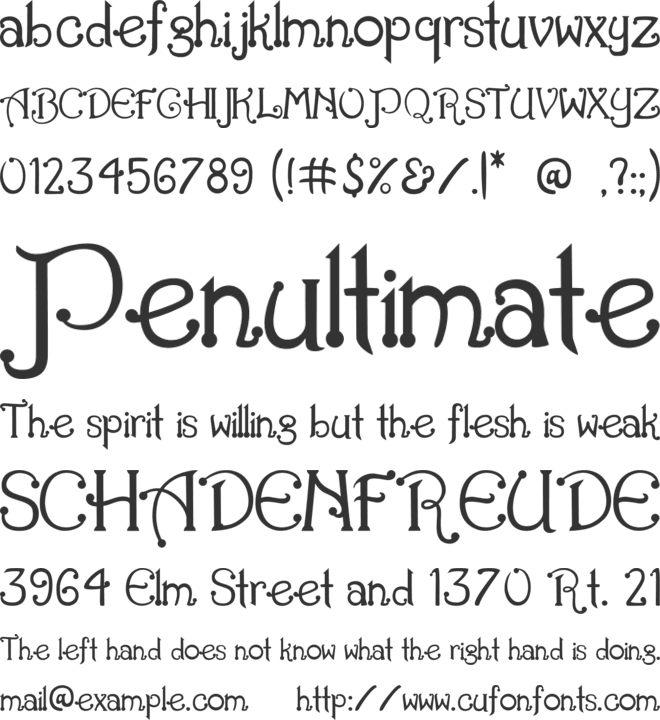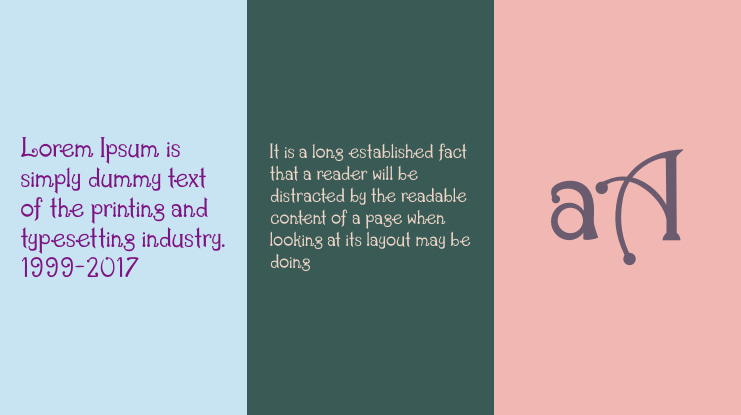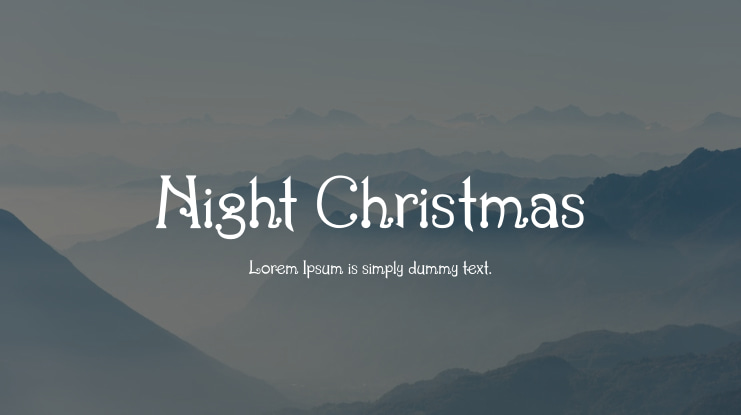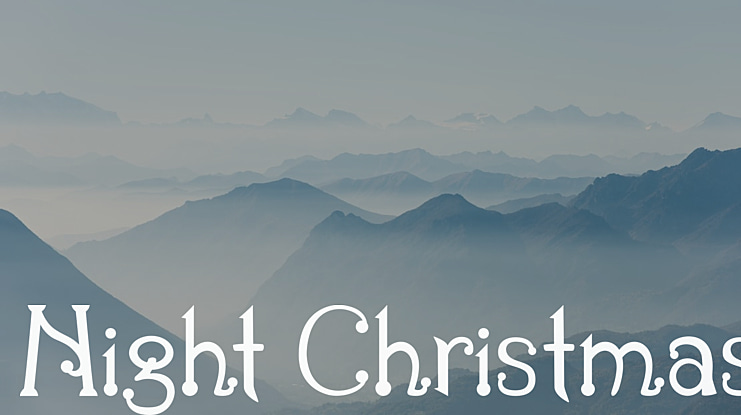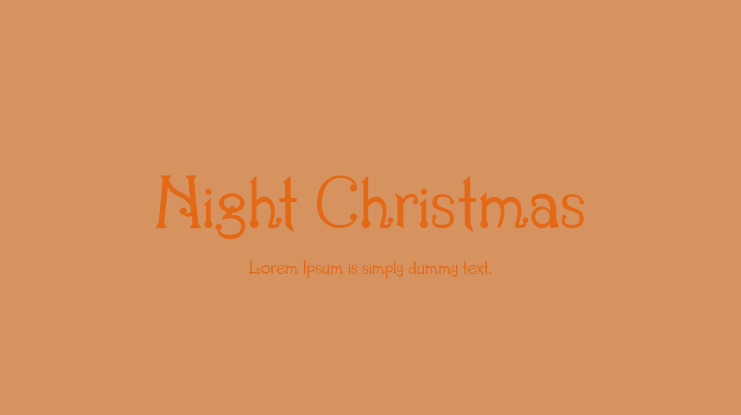
Night Christmas Font
Ridho Bazar Agustin
Night Christmas is an adorable and one-of-a-kind display font. Regardless of the subject, this font will be a fantastic addition to your collection, as it has the ability to enhance any design.